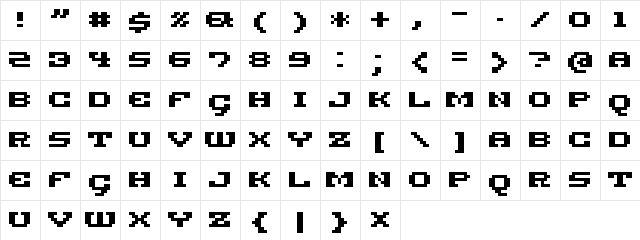
KandelisBold Regular
Design Context for KandelisBold Typeface
KandelisBold is a composed and adaptable typeface that performs quietly and consistently across a wide range of design contexts. The heavy weight commands attention and anchors typographic hierarchies.